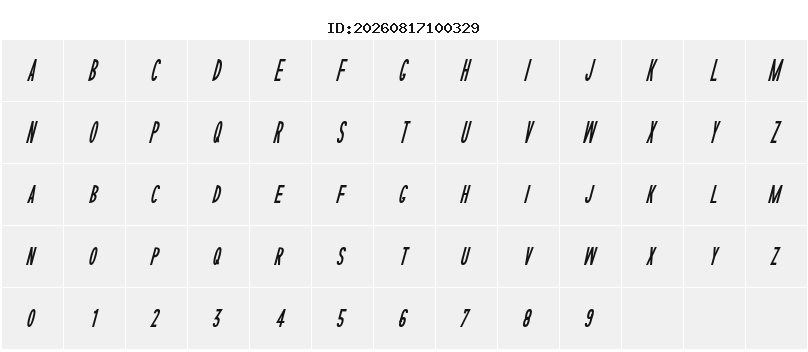
• Font Name: Sophisticated Slims Tight
• Full Font Name: Sophisticated Slims Tight Italic
• Copyright: Copyright Darrell Flood 2014
• Designer: Darrell Flood
About Sophisticated Slims Tight.otf
Sophisticated Slims Tight.otf is a modern, elegant sans-serif font designed for ultimate readability and visual harmony. Perfect for branding, headlines, web design, and print materials.